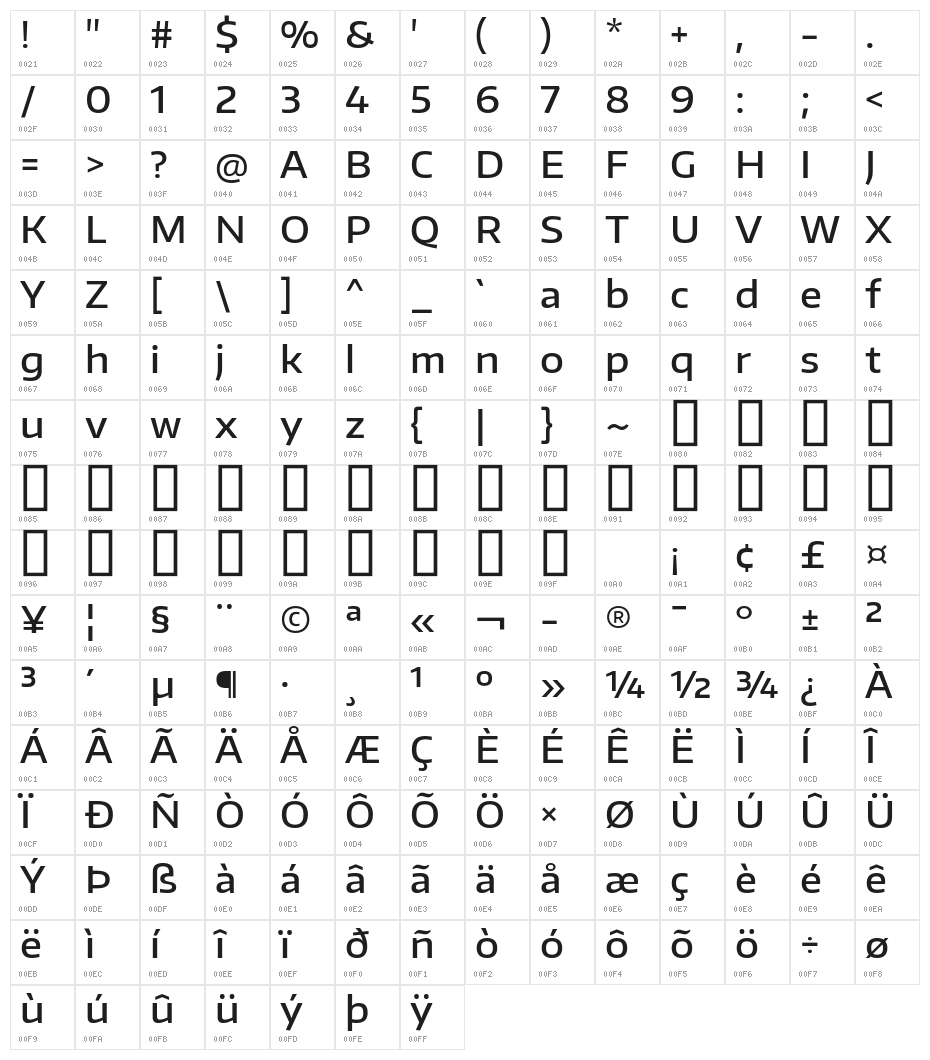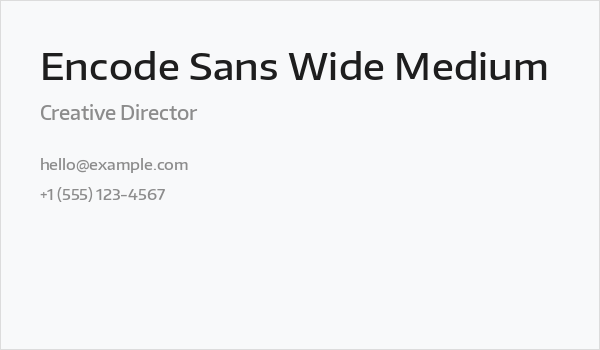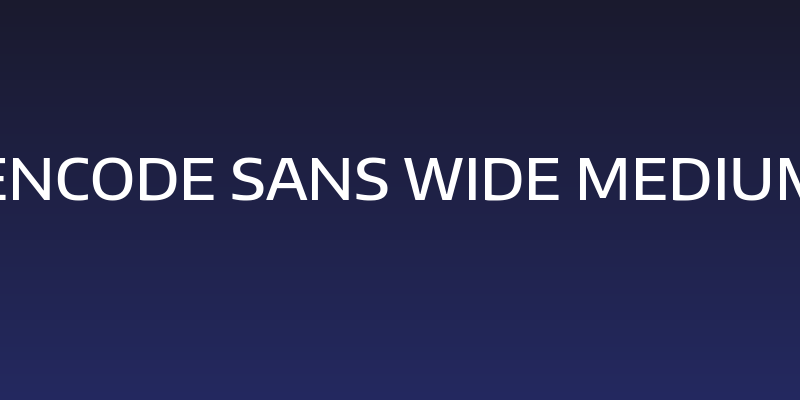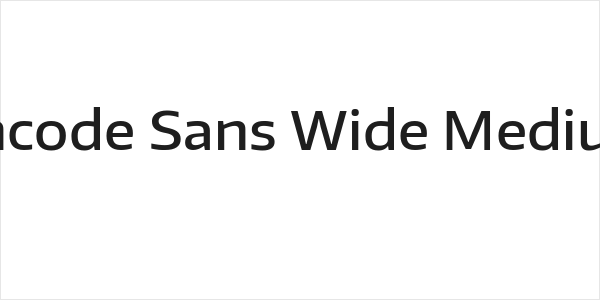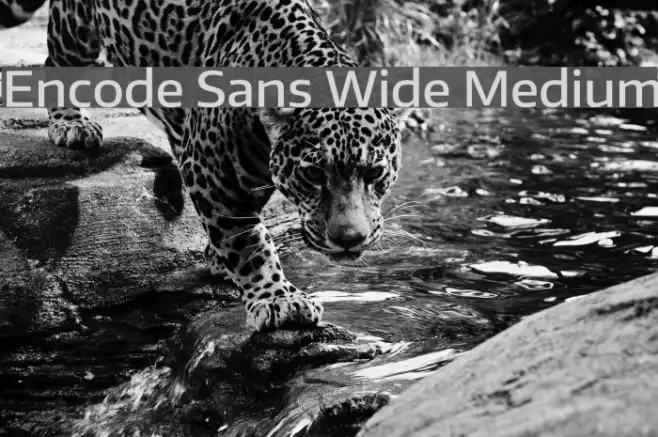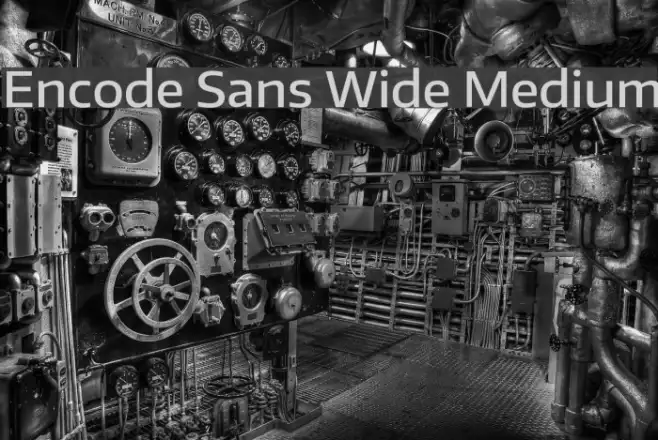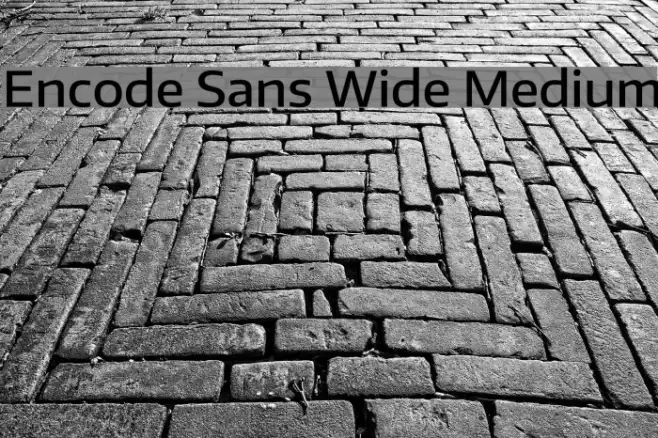
Encode Sans Wide Medium Font
Encode Sans Wide Medium Description
This font presents a clean and modern sans-serif style with a wide stance, offering excellent readability and a contemporary look. The characters are well-proportioned, with consistent stroke widths that provide a balanced appearance. The uppercase letters are bold and assertive, while the lowercase letters maintain a friendly and approachable feel. The numerals are clear and distinct, making them suitable for various applications. Special characters are designed with simplicity and clarity in mind, ensuring they integrate seamlessly with the rest of the typeface.
| Proposed Projects | Ideal for branding, web design, advertising, and editorial projects where clarity and modernity are key. |